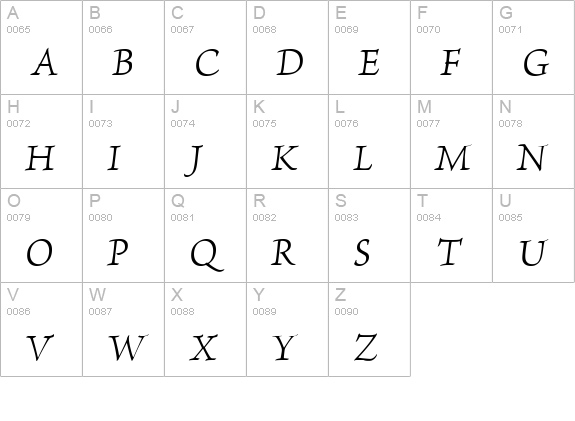
Brioso Pro Light Italic Caption Font Details
Brioso Pro Light Italic Caption is a refined, elegant, italic variant in the Brioso typeface family \xE2\x80\x94 well suited to elegant body text, refined sub-headings, and luxury branding.
Brioso Pro Light Italic Caption font exudes elegance and sophistication with its delicate and refined design. Perfect for adding a touch of sophistication to any project, this font strikes the perfect balance between modernity and traditional charm. Its flowing italic style conveys a sense of grace and fluidity, making it ideal for conveying a sense of sophistication and style. What sets Brioso Pro Light Italic Caption font apart is not just its stunning design, but also the fact that it is available for free download at FontsMarket.com. This means that you can add this exquisite font to your collection without breaking the bank, making it a valuable asset for designers, creatives, and anyone looking to elevate their projects with a touch of class. Don't miss out on the opportunity to enhance your designs with the timeless beauty of Brioso Pro Light Italic Caption font, freely available for download at FontsMarket.com.